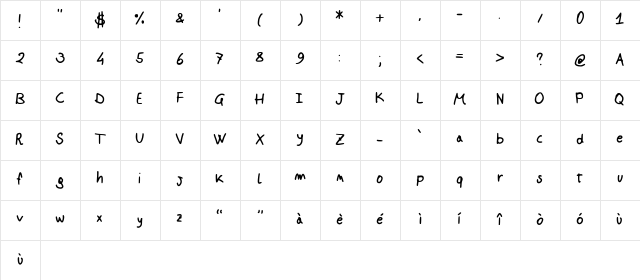
Johnson script Regular
| Foundry | Marco Ballar |
| Designer | Marco Ballar |
Design Context for Johnson script Typeface
Johnson script flows with the natural rhythm of handwritten lettering, making it ideal for designs that call for warmth and personal expression.
Font Pairing: Combine Johnson script with a simple geometric sans for maximum contrast — the tension between flowing curves and clean structure is a classic typographic pairing.
Pro Tip: Use Johnson script for short runs of text — names, titles, or taglines. Extended body copy in script faces tires the eye quickly.